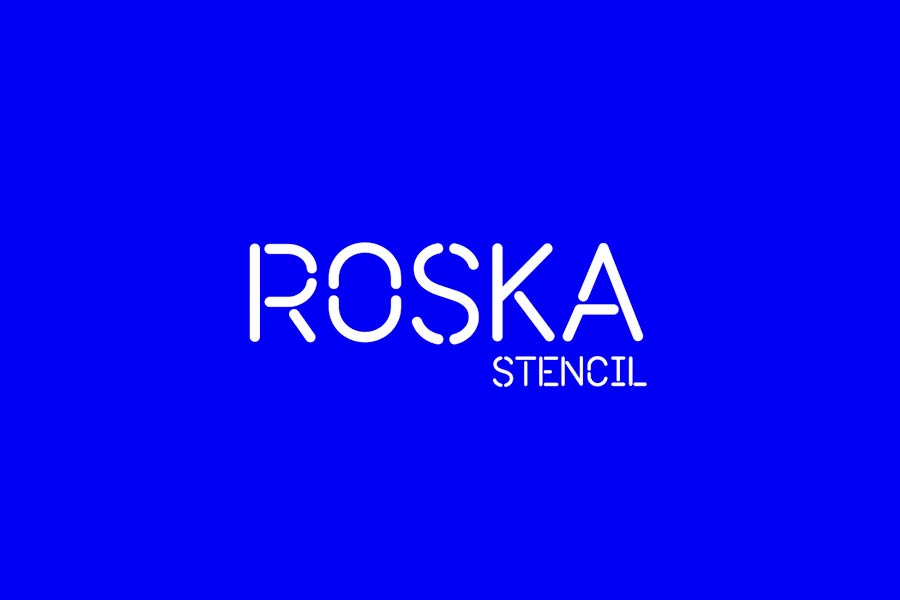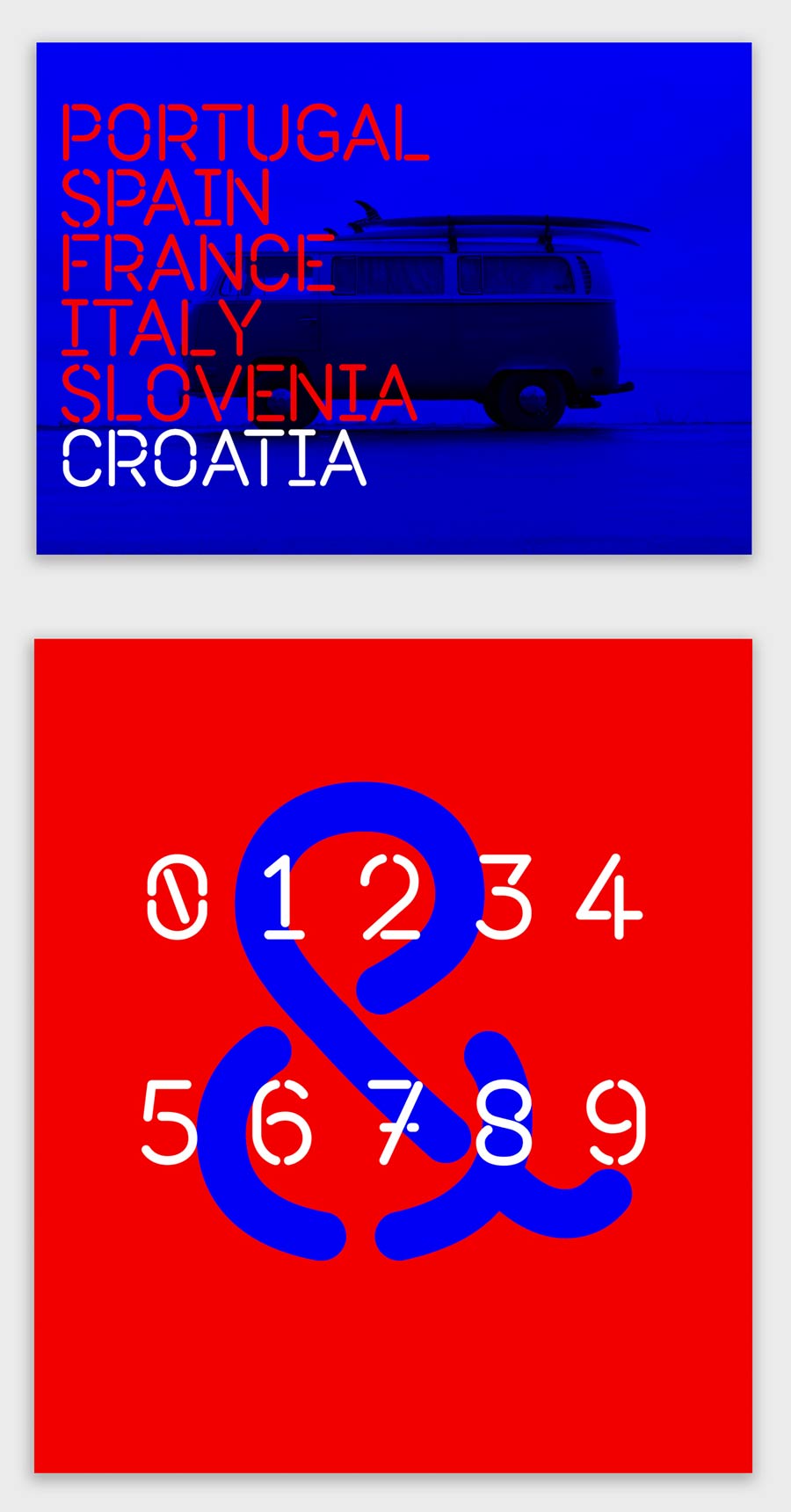
Roska is a free-to-download stencil font with round edges. It was designed with the influences of the Protugese winery labels and a growing popularity of stencil font usage in food and beverages related identities.